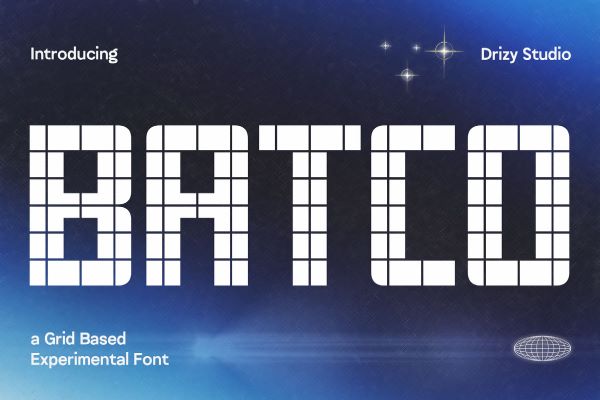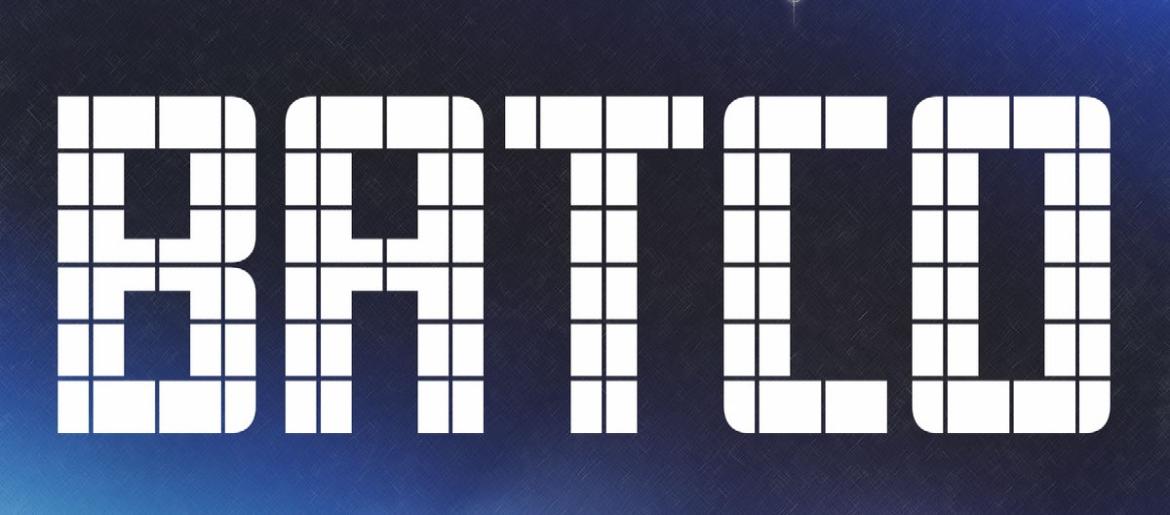
Batco Font
Batco is a bold, grid-based experimental display typeface by Drizy Font that takes the structural logic of modular design to its most dramatic extreme. Every letterform is constructed from a rigid system of tall, squared, brick-like units — creating an alphabet that feels simultaneously industrial, architectural, and unmistakably futuristic. Its pixel-inspired rigidity and striking verticality make it an ideal choice for sci-fi branding, posters, editorial headlines, game UI, and any project that demands structure with serious visual attitude.